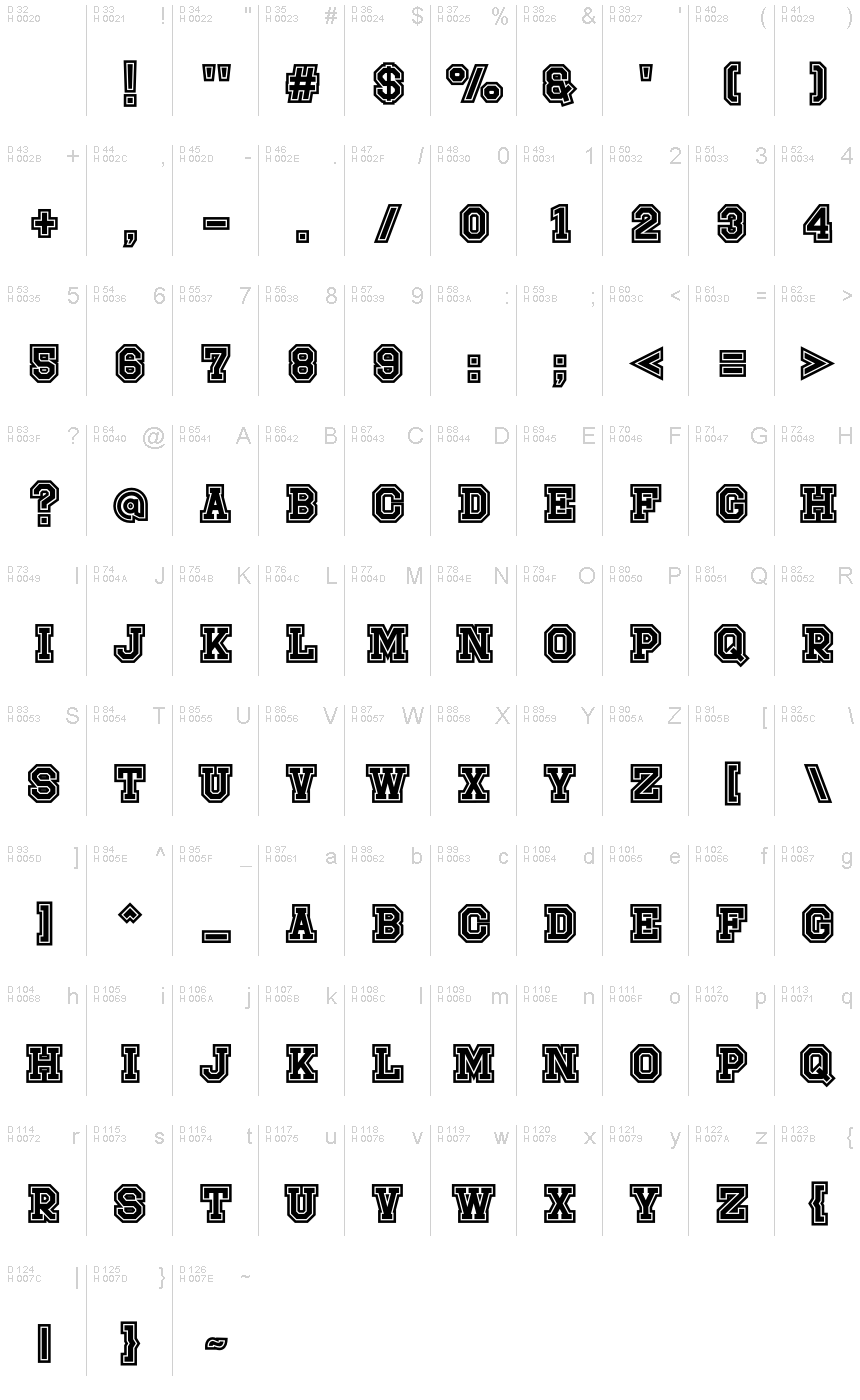
Sportfield Varsity Outline 3
Sportfield Varsity Outline 3 font by Rvandtype is a bold, old-school display typeface. Inspired by mid-20th century varsity and sports team apparel, it holds an athletic style with a collegiate feel. Its strong character and dynamic look make it an excellent choice for headlines that need to stand out. This font combines vintage inspiration with modern techniques for contemporary interpretations.
The free display font can be used across branding projects for sports teams, promotional event designs, merchandise branding or packaging, custom jersey numbers or names, signage, posters and flyers for school events as well as university websites and magazines. It also works well in social media images, motion graphic animations or video campaigns that require impactful texts built on sporty visual aesthetics.